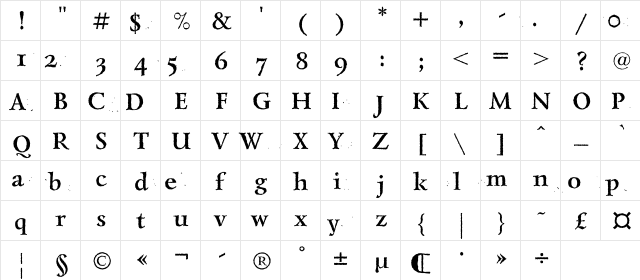
LazurAntiqDisplayC Bold
Design Context for LazurAntiqDisplayC Typeface
LazurAntiqDisplayC brings ornamental detail and strong personality to headlines and identities, where visual impact matters more than quiet functionality. The heavy weight commands attention and anchors typographic hierarchies.
Font Pairing: Pair with a clean neutral sans-serif for body copy to let LazurAntiqDisplayC's character lead without overwhelming the composition.
Pro Tip: Use LazurAntiqDisplayC exclusively at display sizes — it was designed to be seen, not read at length. Let a neutral companion handle body copy.